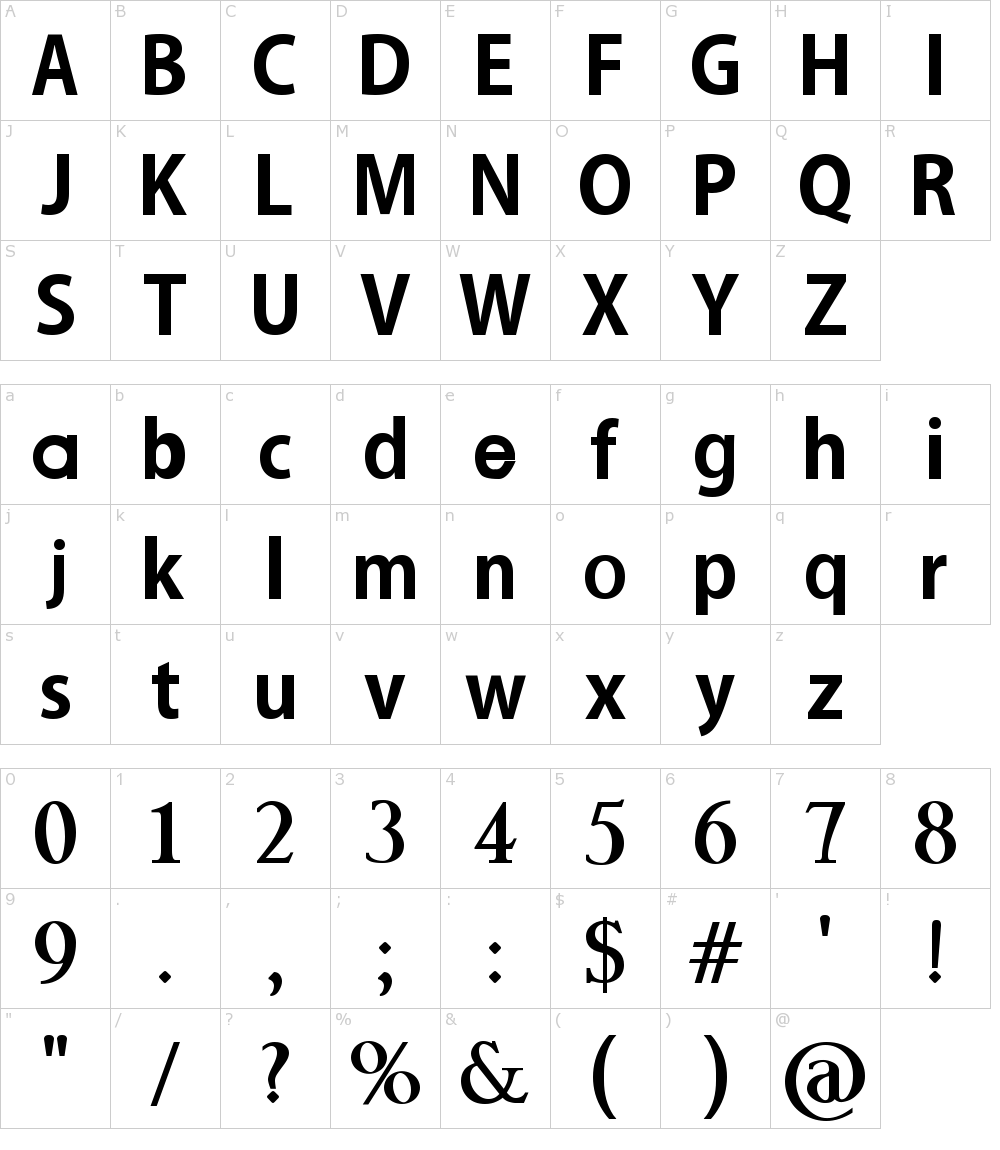
Nutella Regular Font . The nutella bold font has been downloaded 141,431 times. Download and install the nutella bold font by colargol59. Moreover, you can embed it to. Nutella logo font is a logo, sans serif type font that can be used on. Nutella is the perfect font for all your fun designs. Nutella logo font download is available free from 8font.com. The font used for nutella logo is very similar to avant garde gothic bold, which is a geometric sans serif font designed by herb lubalin & tom. Nutella designed by kang1993, this is a premium font, are sold on creative fabrica, but it was great, it is free today for download. The font subfamily is regular. Nutella designed by kang1993, this is a premium font, are sold on creative fabrica, but it was great, it is free today for download. The font was designed by muammar khalid and free for.
Nutella Handmade font, Brush font, Typography graphic Nutella Regular Font Download and install the nutella bold font by colargol59. Nutella is the perfect font for all your fun designs. The nutella bold font has been downloaded 141,431 times. The font used for nutella logo is very similar to avant garde gothic bold, which is a geometric sans serif font designed by herb lubalin & tom. The font subfamily is regular.. Nutella Regular Font.
Nutella Font Free Fonts Nutella Regular Font Nutella logo font download is available free from 8font.com. Nutella logo font is a logo, sans serif type font that can be used on. Download and install the nutella bold font by colargol59. Nutella designed by kang1993, this is a premium font, are sold on creative fabrica, but it was great, it is free today for download. The nutella bold. Nutella Regular Font.
Nutella Logo Font Nutella Regular Font The nutella bold font has been downloaded 141,431 times. Download and install the nutella bold font by colargol59. The font used for nutella logo is very similar to avant garde gothic bold, which is a geometric sans serif font designed by herb lubalin & tom. Nutella is the perfect font for all your fun designs. Nutella designed by kang1993, this. Nutella Regular Font.